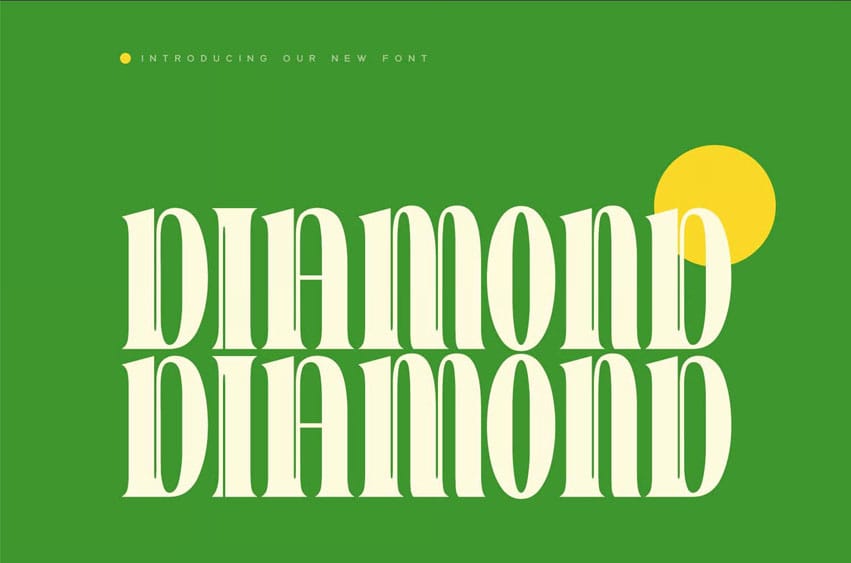
Diamond Serif Font Display is a meticulously crafted font, designed to make a bold statement in your creative projects. Ideal for posters, magazine covers, headlines, logos, branding, and more, this font brings a modern and dynamic touch to any design.
- Versatile Usage: Perfect for creating eye-catching posters, striking magazine covers, and attention-grabbing headlines.